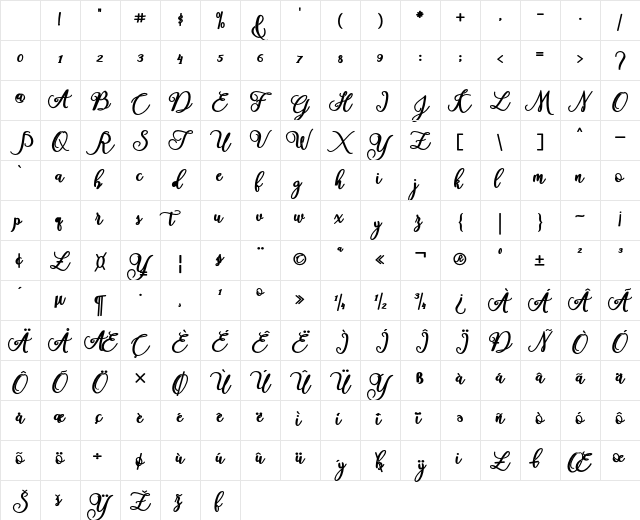
Complete America Regular glyph index. Displaying only characters natively supported by America Regular font.
America is a composed and adaptable typeface that performs quietly and consistently across a wide range of design contexts.
Who designed the America Regular font?
This font was published by Muhammad Rizal ( MrLetters). Check the technical specs section for copyright and designer details.